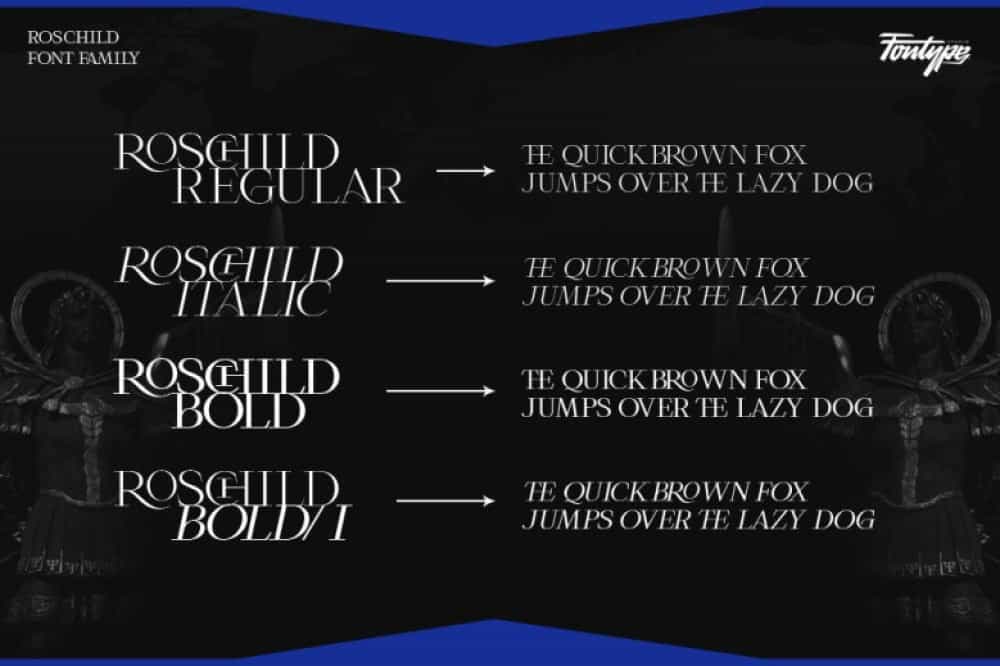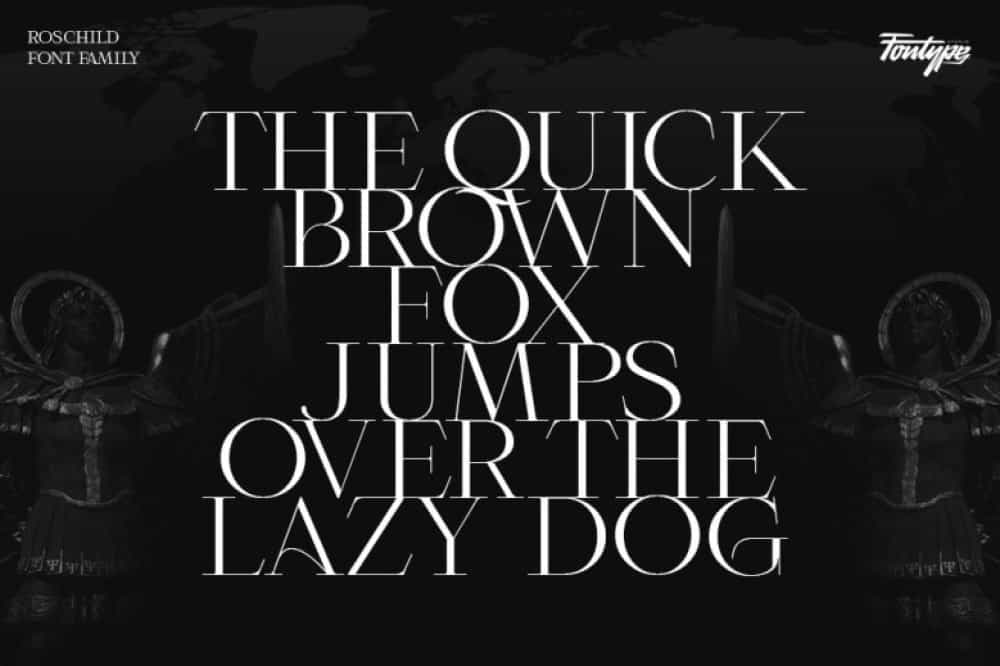
Roschild is an elegant serif typeface inspired by older writing styles with a gothic flare, yet boasts an upscale and sophisticated feel that is perfect for quotes as well as blogger previews designs, logotypes and fashion web banners, musicians promotional songs or restaurant/coffee shop promotions – or just about anything else you need a good font for.